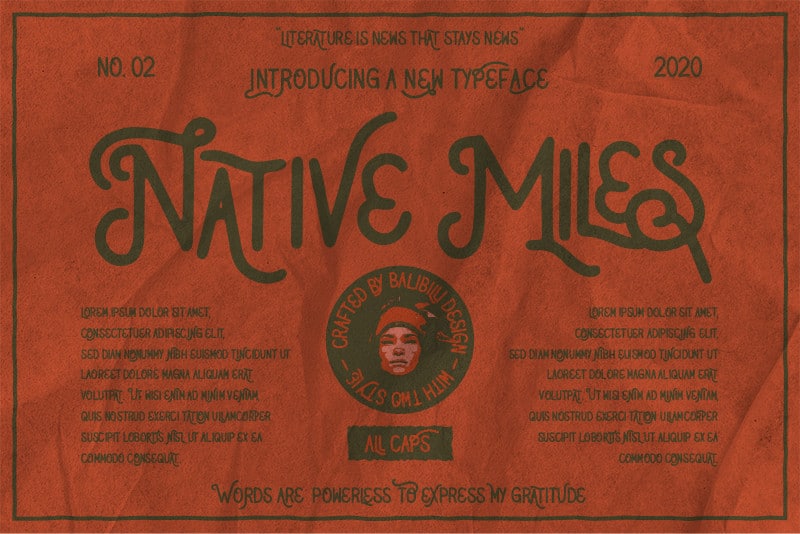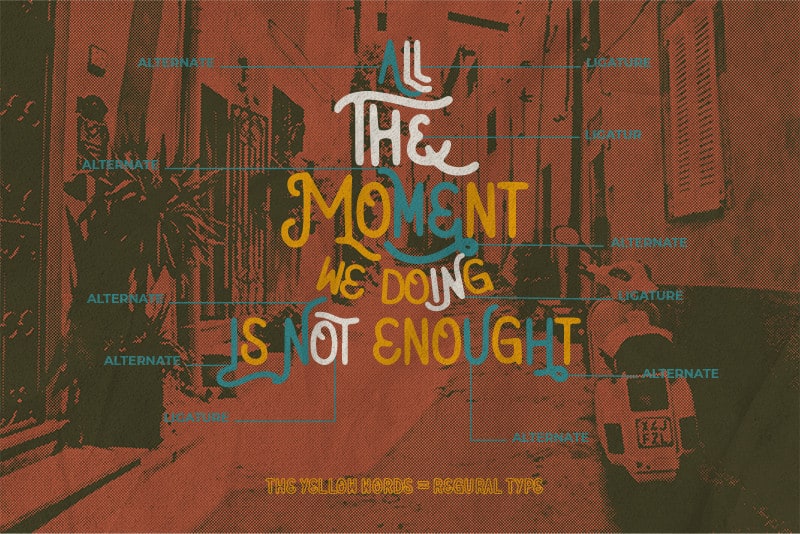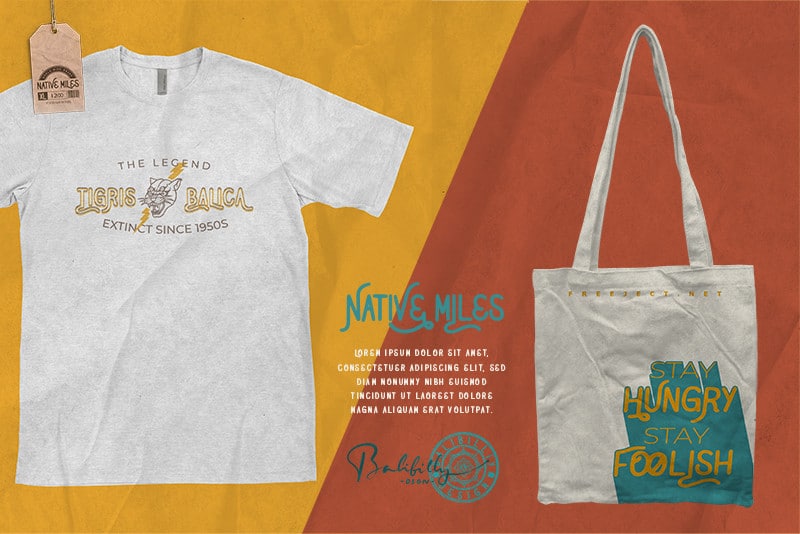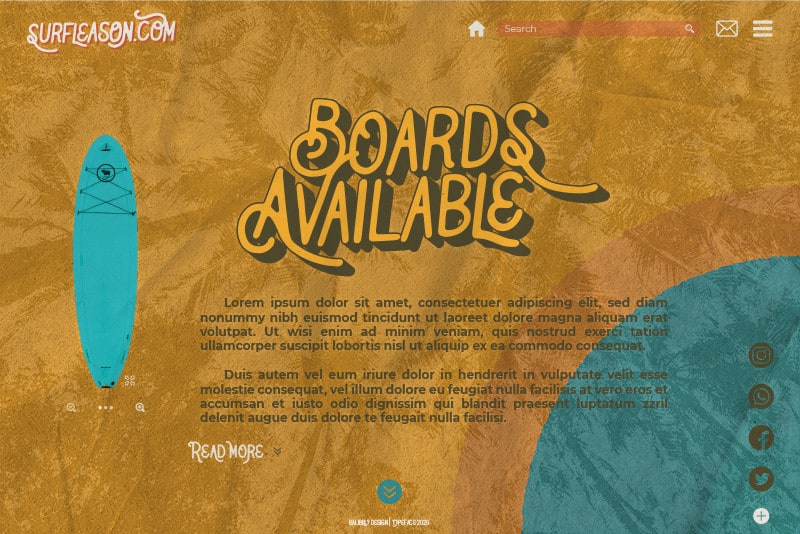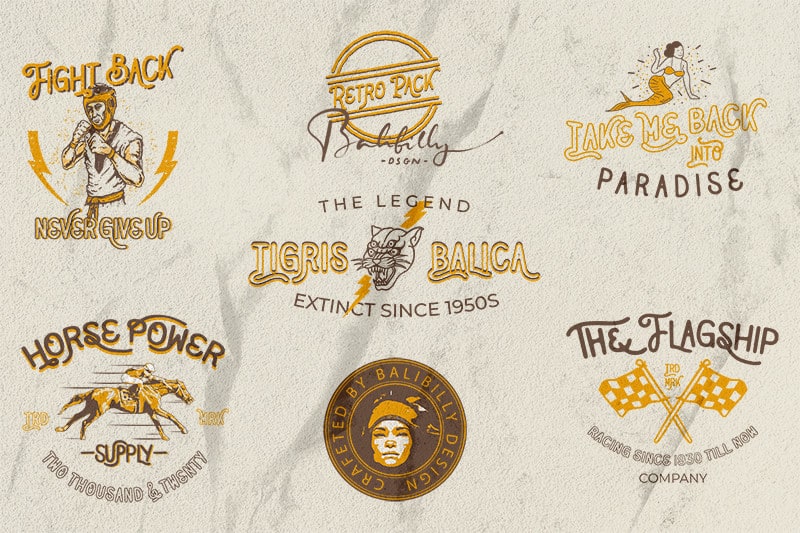
Native Miles – Vintage Font
Native Miles Vintage Font is a vintage display sans serif font with 2 different styles, regular and outline. This font is dedicated to the designer and company that need a retro vintage style and unique text.
Native Milles Features:
– upper case
– lower case
– open type feature
– authentic ligatures
– numeral
– punctuation
– multilingual support.
Strikingly versatile for branding logotype, logo badges, digital lettering arts, apparel, poster, website layout, magazine, card, signs, advertising design, and any vintage design needs.